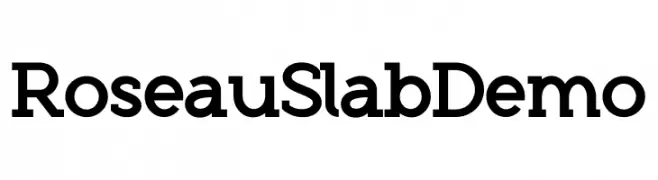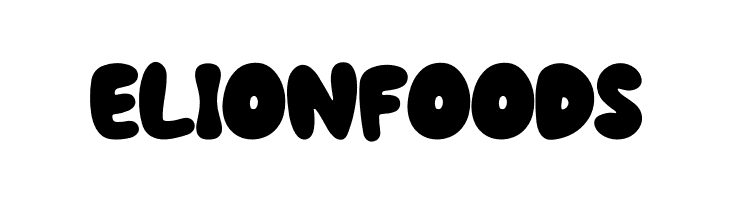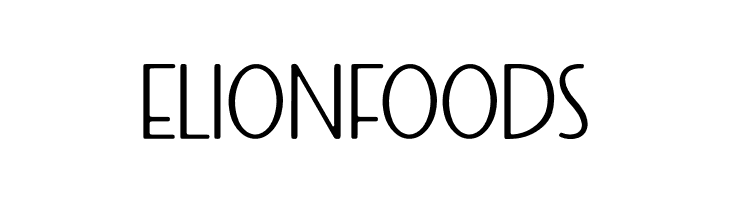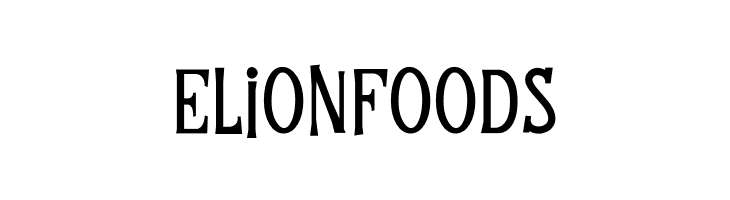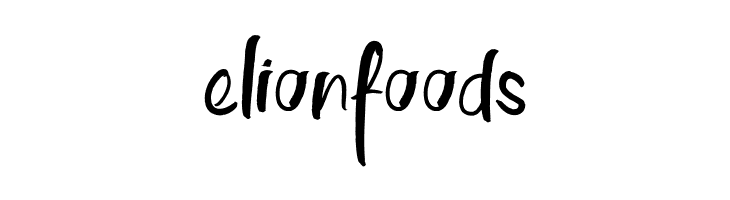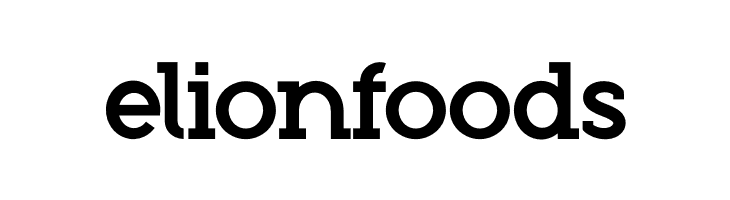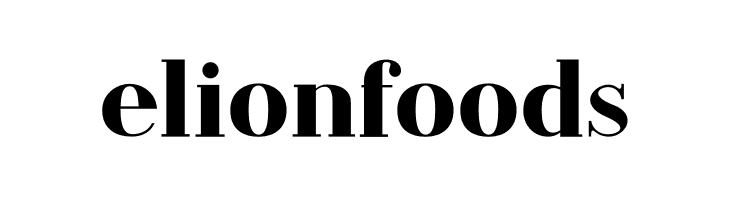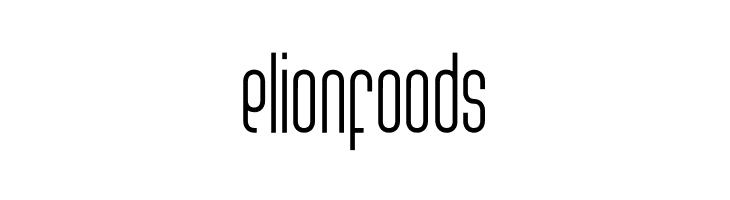
A playful, bold font with rounded, bubbly characters perfect for fun and informal designs.
A playful and whimsical font with smooth, flowing lines and slightly irregular shapes.
A bold, vintage-style serif font with tall, narrow characters and sharp serifs.
A lively, handwritten font with dynamic strokes and a playful style.
A bold, structured slab serif font with a modern yet classic appeal.
A modern, bold sans-serif font with geometric structure and excellent readability.
A classic serif font with high contrast and elegant styling.
A whimsical, decorative font with playful swirls and curls.
A modern, narrow font with sleek, uniform characters.
A sophisticated serif font with high contrast and elegant serifs.